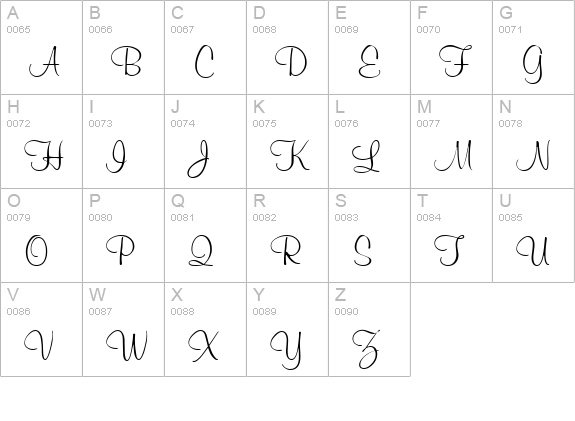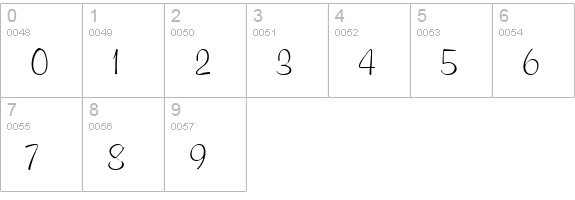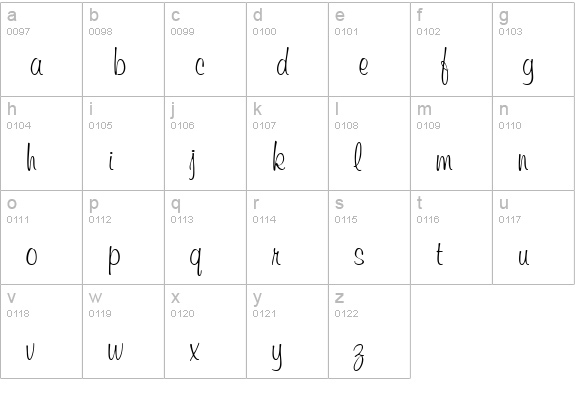
Murray Regular is the standard, neutral variant in the Murray typeface family \xE2\x80\x94 well suited to general body text, paragraphs, and standard typographic work.
Murray Regular font is a versatile and stylish typeface that exudes elegance and sophistication. With its clean lines and balanced proportions, Murray Regular is perfect for a wide range of design projects, from branding to editorial design. This timeless font is free to download at FontsMarket.com, making it accessible to all designers looking to add a touch of class to their work. Whether you're creating a logo, a website, or a print advertisement, Murray Regular is sure to make a lasting impression. Elevate your designs with this stunning font today!